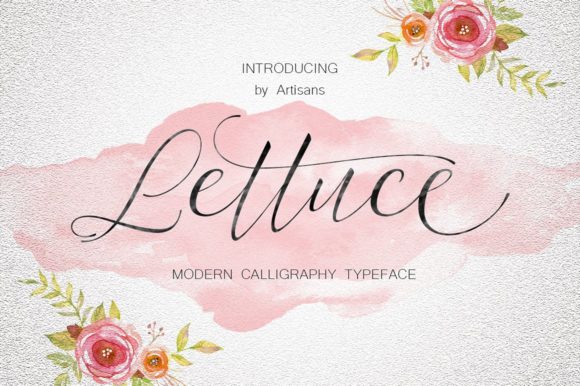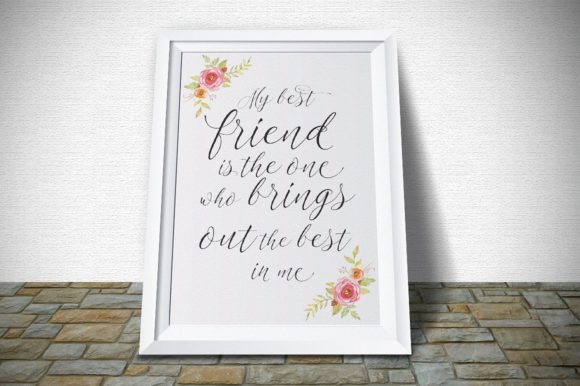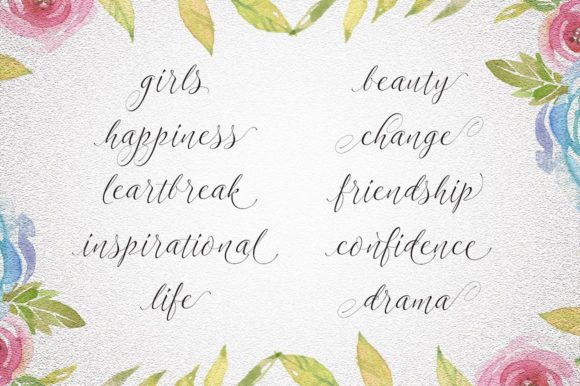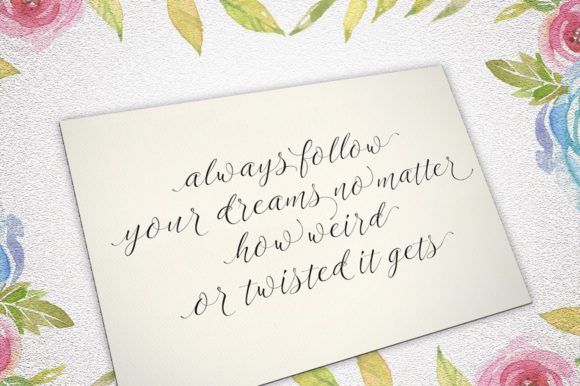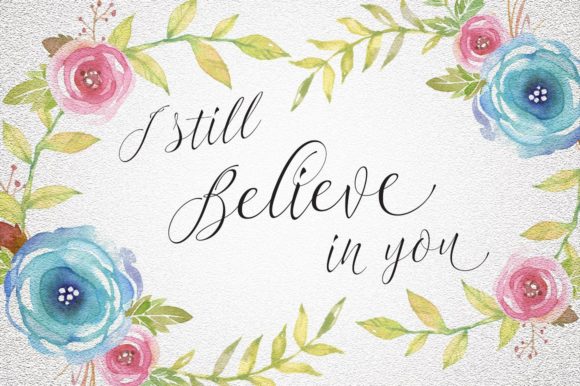
Letuce Font
About Letuce Font
Lettuce is modern calligraphy script font. It's perfect for invitations, posters, logos, book covers and much more!Include this lovely font in your next project and give it a stylish look.